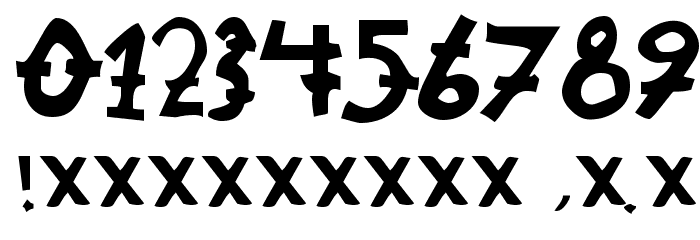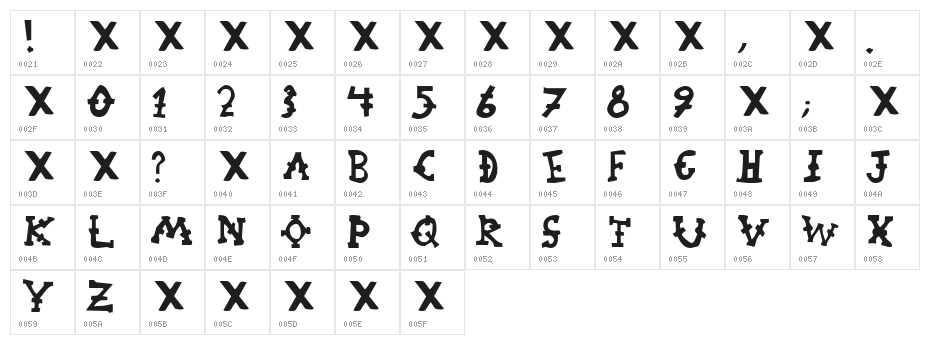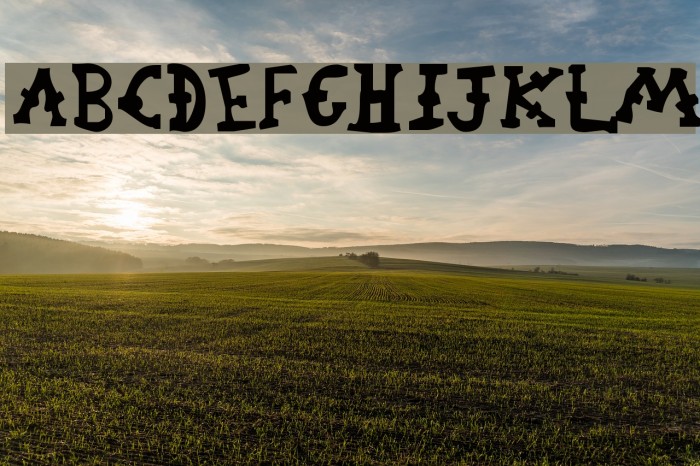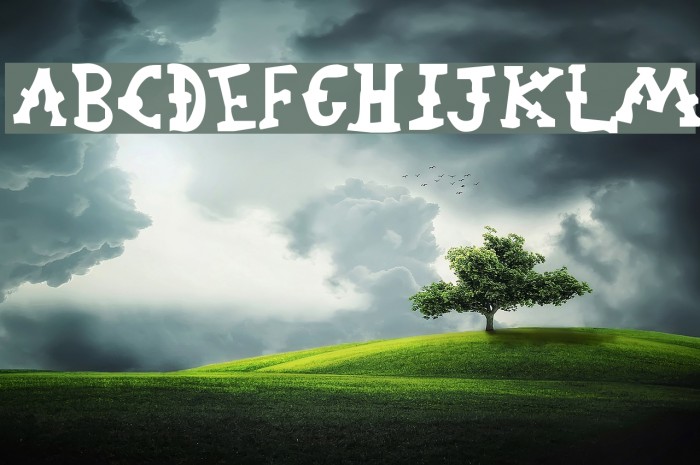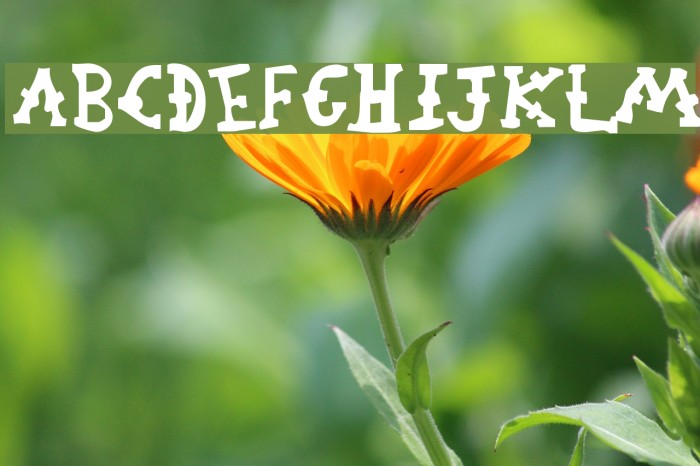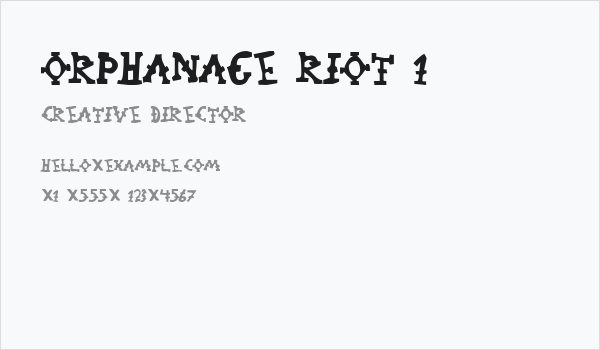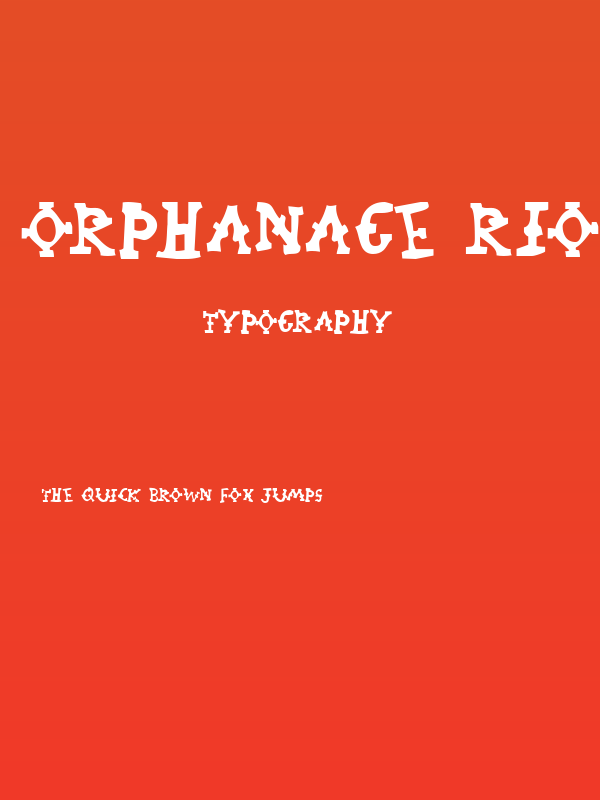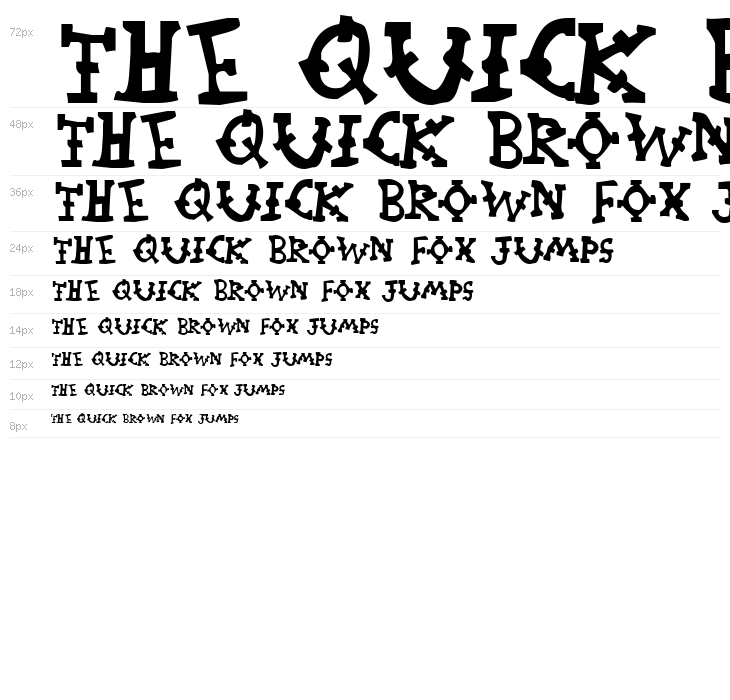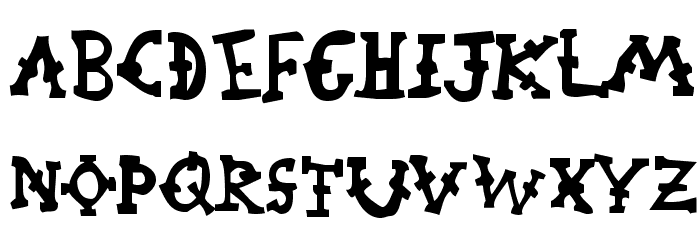
Orphanage Riot 1 Font
Orphanage Riot 1 Description
This font features a bold and dynamic style with a distinctly jagged and irregular appearance. The characters are designed with sharp angles and uneven edges, giving it a rebellious and chaotic feel. The uppercase and lowercase letters maintain a consistent theme of unpredictability, while the numbers and special characters follow suit with their own unique flair. This font is visually striking and commands attention, making it ideal for projects that require a bold statement.
| Overall Style | Rebellious, Chaotic, Edgy |
| Use Case | Headlines, Posters, Album Covers |
| Proposed Projects | Ideal for punk rock album covers, edgy posters, graffiti art, and rebellious branding projects. |